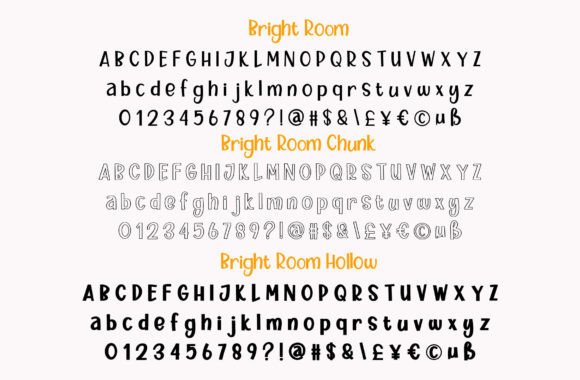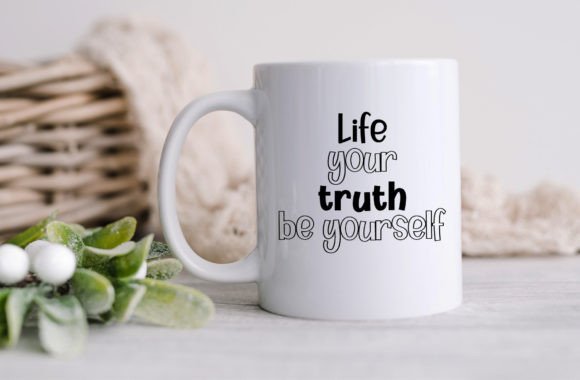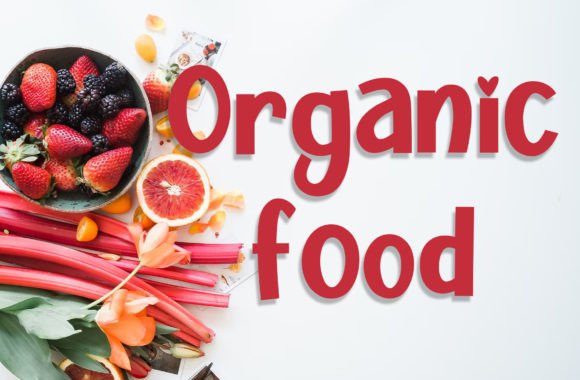
Bright Room Font
Say hello to Bright Room, a set of fun hand-lettered fonts that mix and match and snuggle together like one big alphabet family.Bright Room is the original base alphabet of Bright Room Handwritten. Bright Room Hollow are outline versions of Bright Room, and can be placed right over the top of the solid letters for a great outline look, or they can be used on their own. And Bright Room Chunk is a denser, thicker version of the alphabet! All letters are designed to enhance all types of your design projects.